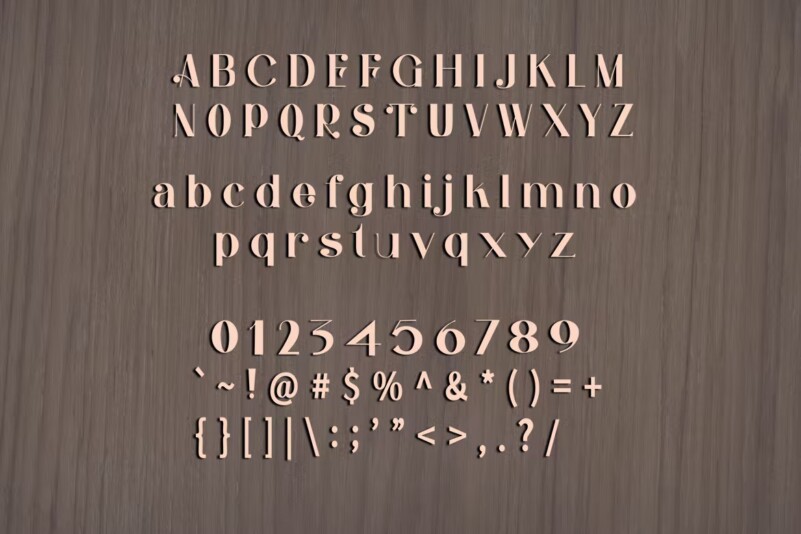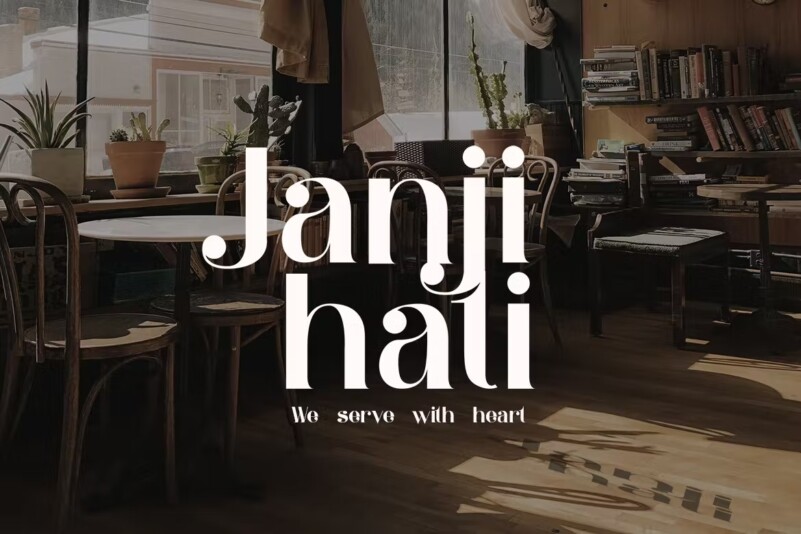
Estrella Gottajie – Retro Font
Check out Estrella Gottajie , an elegant, simple and aesthetically pleasing serif font. It is unique with a retro and vintage touch. Perfect for you who need a typeface for Logos, Magazines, Social Media, Brochures and many more.